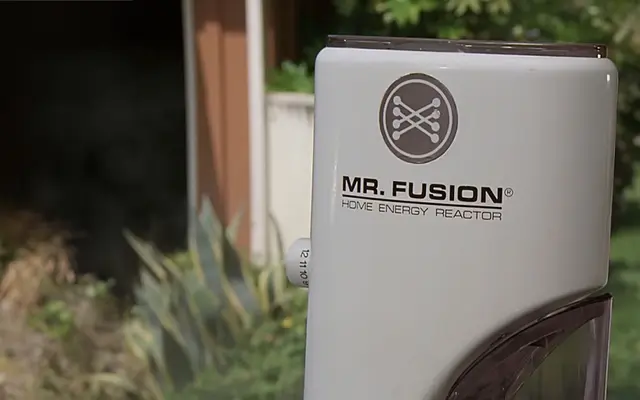
New Science Extended
Newlyn · Miles Newlyn
An extended-width geometric sans with square letterforms, drawing on Eurostile's tradition while pushing towards a more contemporary, precision-oriented aesthetic.
Designed by Miles Newlyn, New Science Extended belongs to a wider family that includes a standard, monospace and serif variant. Square letterforms and carefully adjusted stroke weights give the typeface a structured, high-tech character suited to branding and identity work in science, technology and innovation sectors. The extended width adds a distinctive horizontal rhythm that sets it apart from its more compact predecessor references.
Square-shaped letterforms inspired by Eurostile place this firmly in the geometric sans tradition, specifically the squared/superellipse variant associated with high-tech and industrial design.